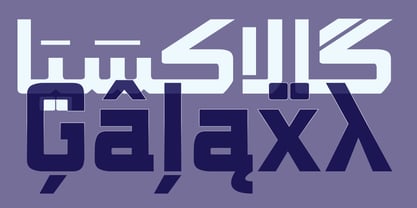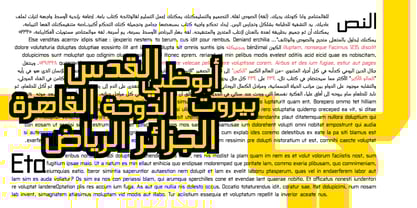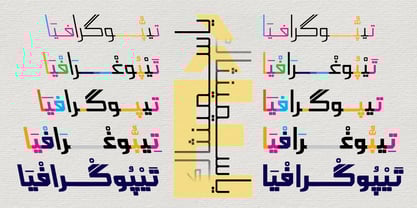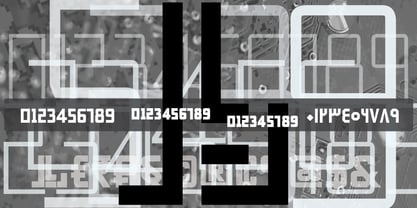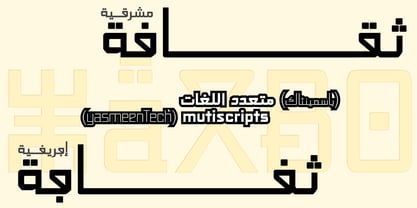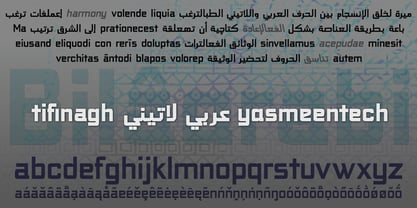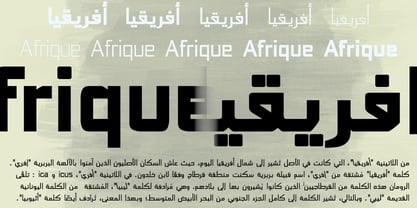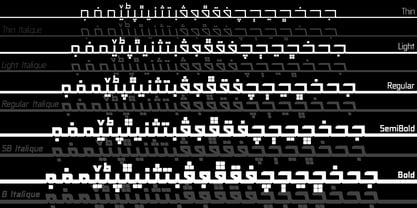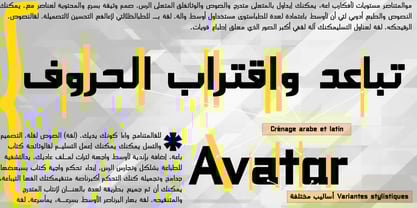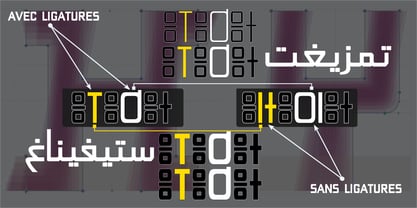
Yasmeen Tech
Die Schriftfamilie Yasmeen Tech wurde von Ammar Bouras entworfen und von GrafikarFonts veröffentlicht. Yasmeen Tech enthält 10 Stile und Familienpaketoptionen.
YasmeenTech, inspired by Kufic, is a MultiScripts font developed by GrafikarFonts. It covers Arabic, Latin, and Tifinagh, highlighting the harmony of glyphs across all scripts. As with all our fonts at GrafikarFonts, we place great importance on visual harmony and glyph readability. YasmeenTech offers full multi-script support with over 1,700 glyphs and highlights IPA sounds for enhanced phonetic accuracy. Ligatures have been replaced by contextual glyphs (calt) and by stylistic sets (ss01), for a modern and expressive typography. YasmeenTech provides variants and editing options to suit your needs, from Thin to Bold, Normal to Italic, c2sc, frac, numr, dnom, etc. GrafikarFonts is committed to customizing YasmeenTech to meet your specific requirements, ensuring a smooth and harmonious integration into your projects.
Designer: Ammar Bouras
The Arabic writing is fundamentally based on the calligraphic look and the relation between the letters that shift shape at each connection between them. GrafikarFonts’s aim is to create fonts out of Arabic symbols that’s influenced from this calligraphic tradition all while keeping in touch with a modern and digital world, making sure to match to practical needs as well. Often, in the Arabic language, we have to write words from Latin and that’s another goal of GrafikarFonts; to design smooth Arabic, Latin and Tamazight Tifinagh fonts that harmonize together.